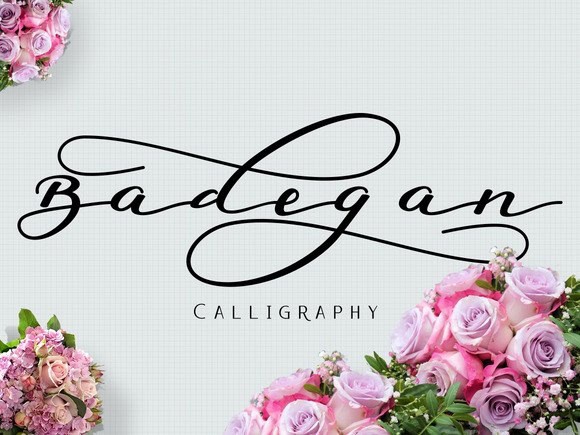
badegan
Unleash Your Creativity with Badegan Font
Badegan Font, crafted by renowned designer John Smith in 2022, embodies a modern aesthetic with its clean lines and stylistic flair. This font is perfect for a multitude of uses, including web design, branding, and print materials. Its versatility allows for both creative and professional applications, making it a go-to choice for modern designers.
Explore the Features and Formats of Badegan Font
The Inspiration Behind Badegan Font
Badegan Font draws inspiration from contemporary design trends, combining minimalism with a touch of sophistication. Its creator, John Smith, aimed to develop a font that stands out while remaining unobtrusive, making it an ideal choice for both corporate and casual designs.
Versatile Uses for Badegan Font
Badegan Font excels in various applications, from digital marketing and social media graphics to printed materials such as brochures and business cards. Whether you’re designing a modern logo or an elegant invitation, Badegan Font adapts to meet the stylistic demands of your project.